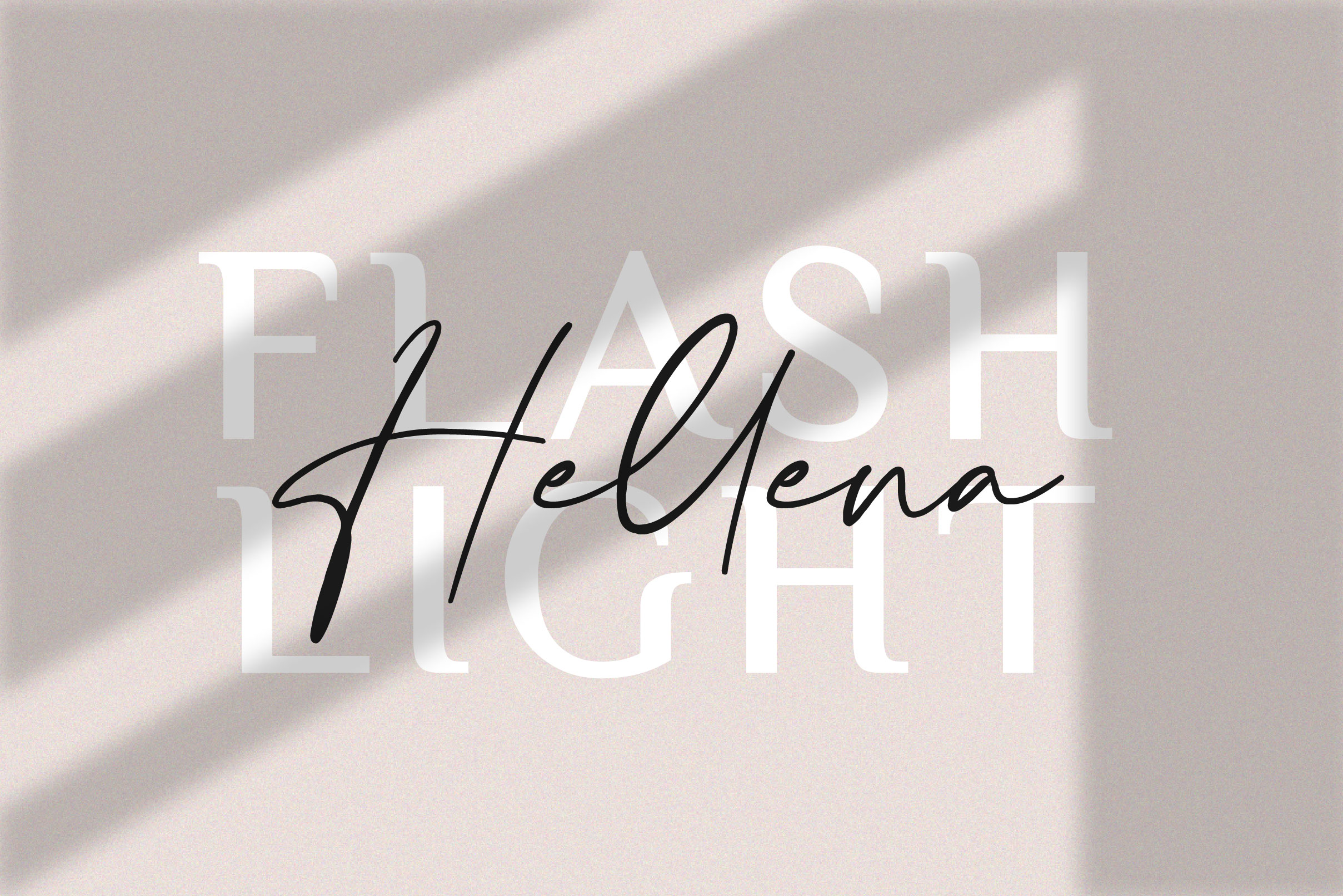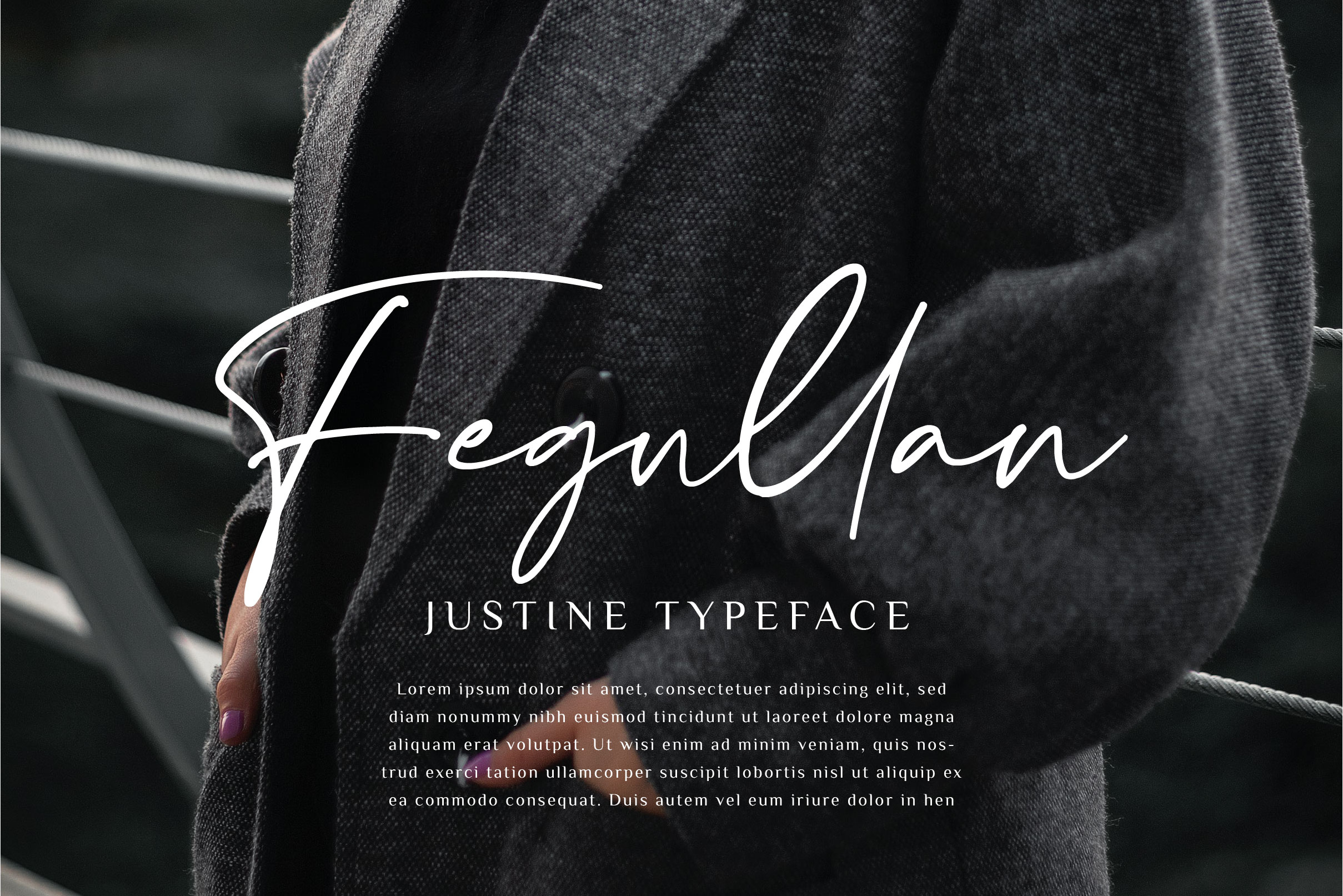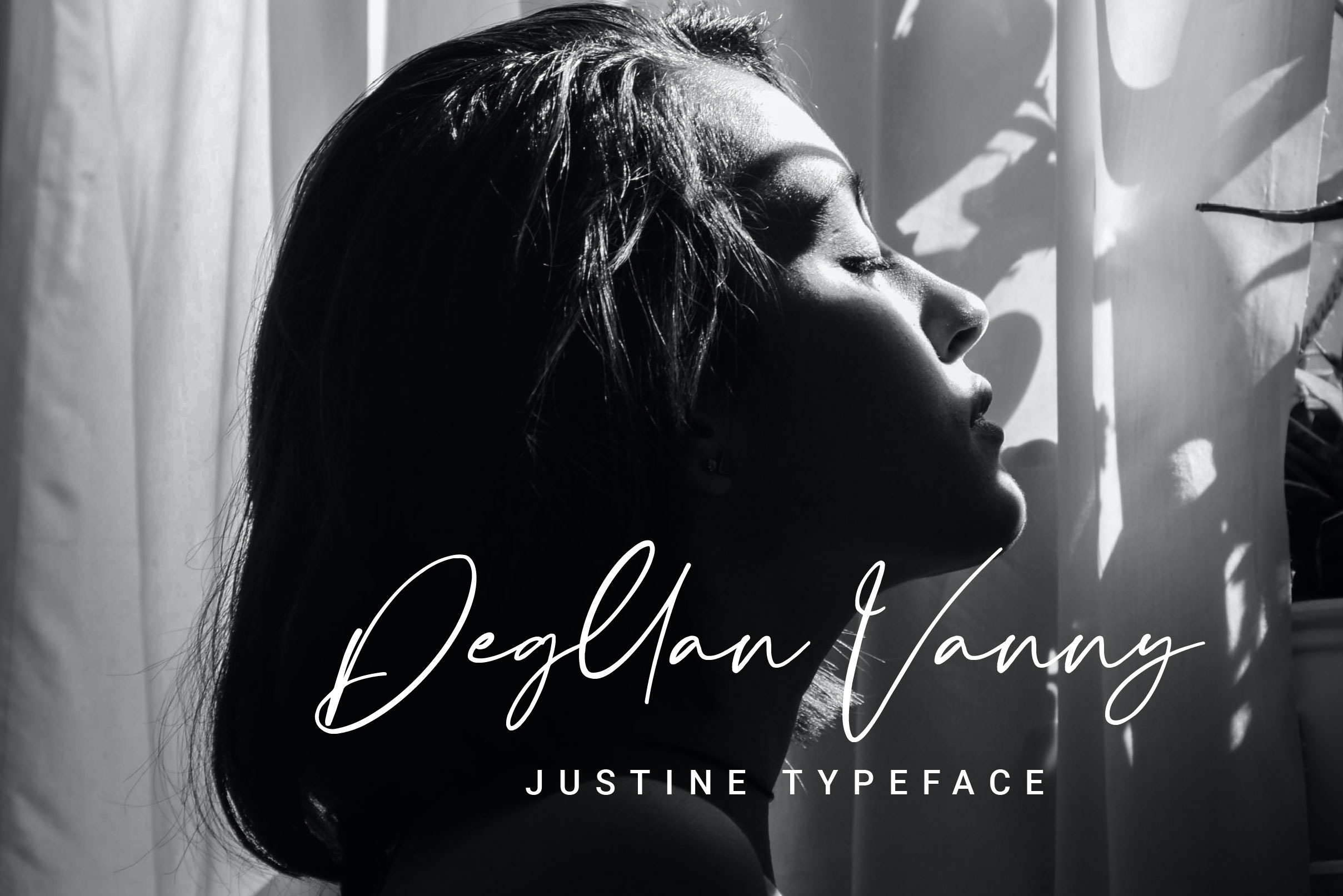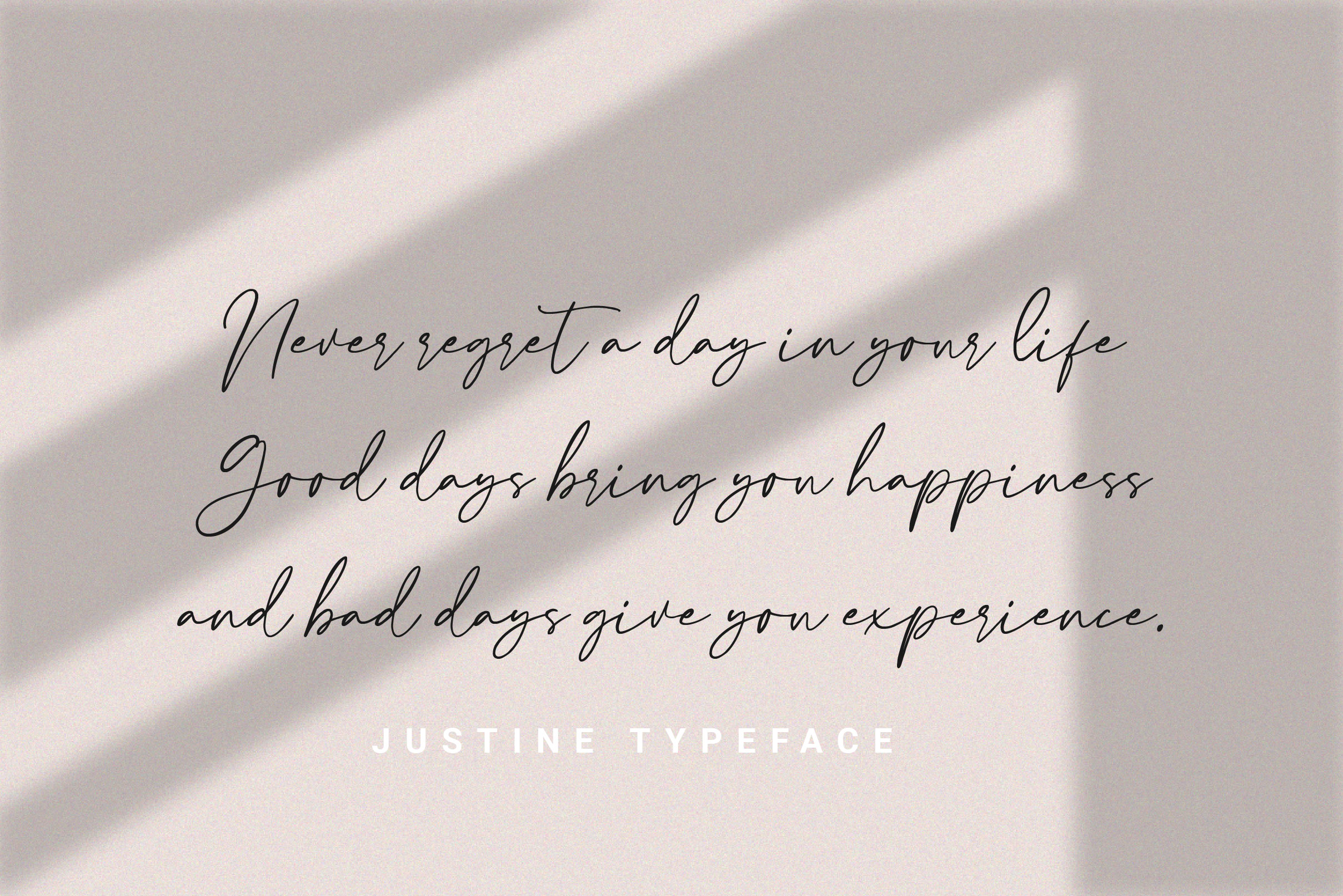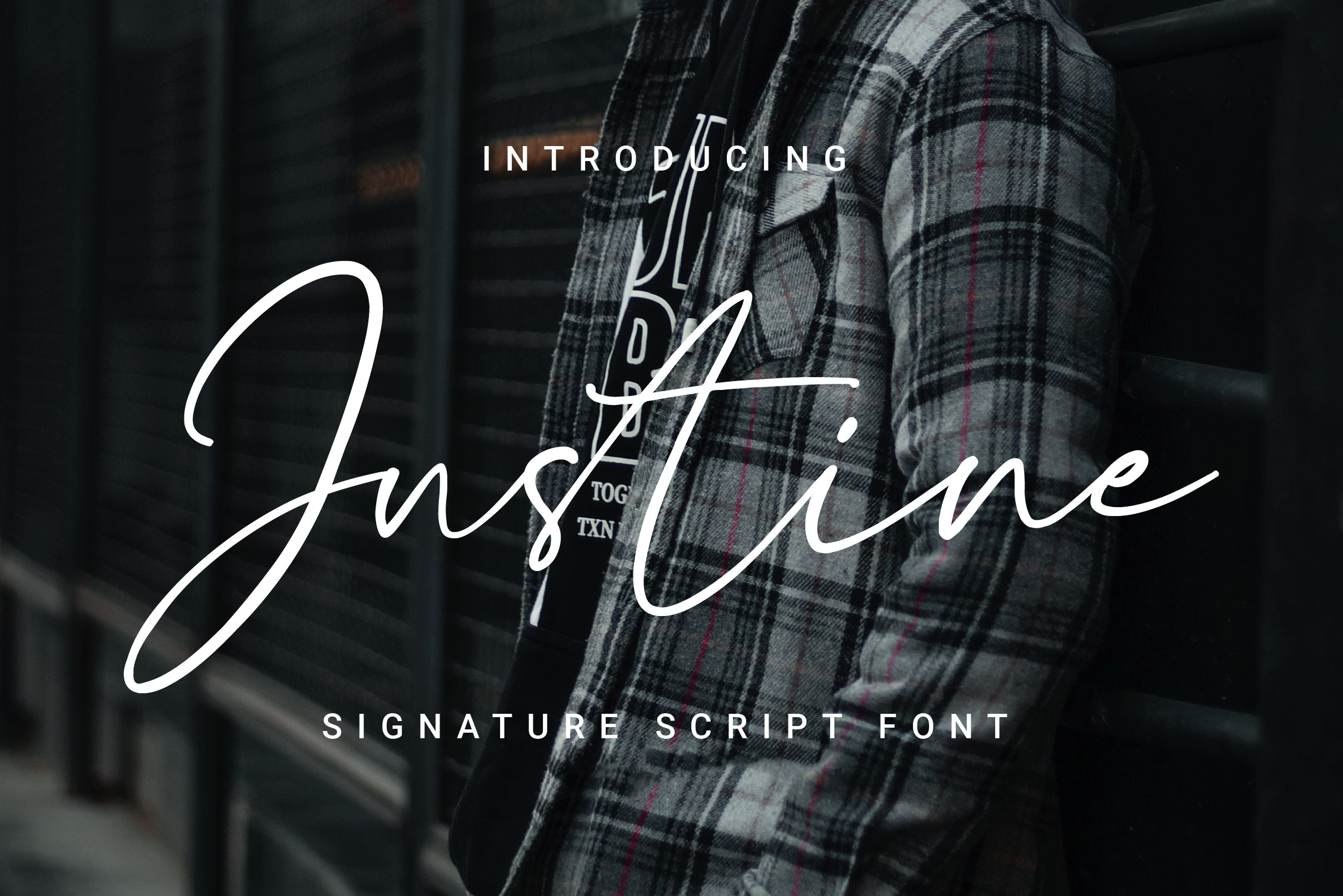
Justine Font
Justine Handwritten Font is an elegant script font, perfect for giving your designs a handwritten feel. This signature font is flexible and looks at home in modern and hipster designs, but can add some class to invitationals and print publications.